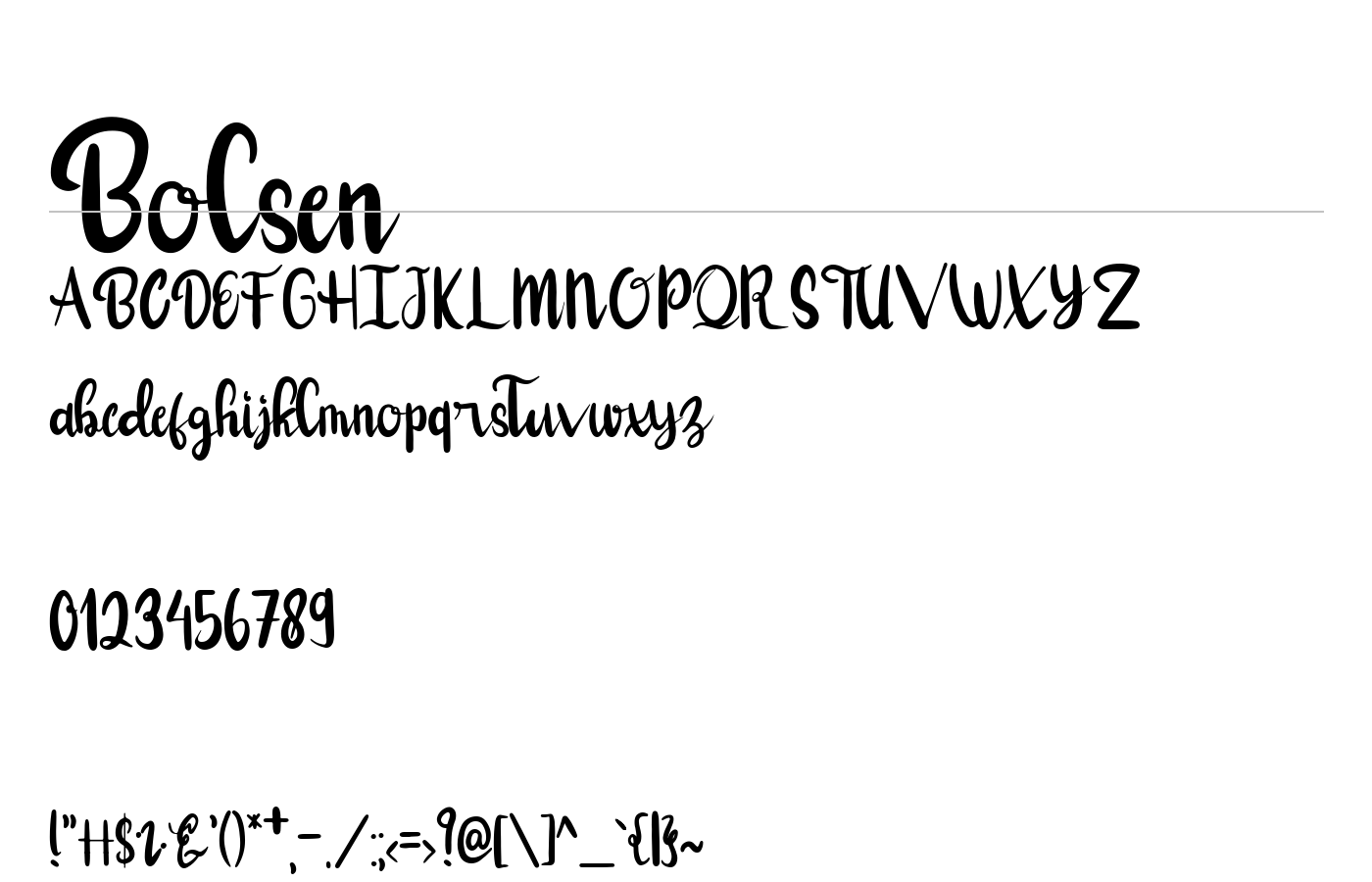
Bolsen is a playful and casual script font featuring lively, hand-drawn letterforms with a friendly, artistic feel. Its upright, slightly condensed style with whimsical curves and smooth strokes makes it ideal for creative branding, invitations, and informal headlines where a warm, approachable look is desired. This font adds a charming, handcrafted touch that works well for personal and decorative designs.
Bolsen Font
About Bolsen Font
| Designer | Muhammad Hisyam Rivai |
| Trademark | Blom Letter Studio - Indonesia |